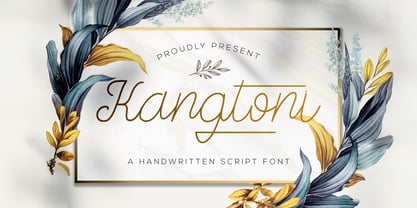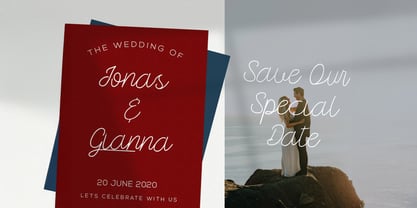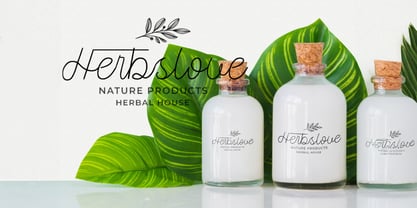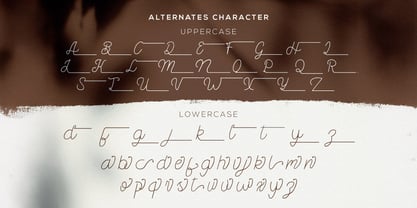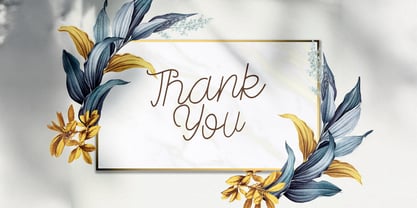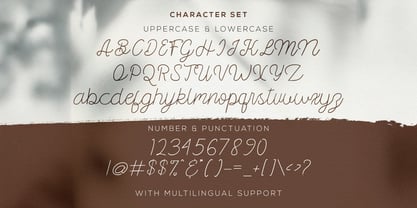
The Kangtoni Font Family was designed by Virgiawan Listanto and published by Stringlabs Creative Studio. Kangtoni contains 1 styles. More about this family
Kangtoni is a sleek and elegant monoline script font that combines modern design with a touch of sophistication. Its smooth, continuous lines create a flowing, handwritten appearance, making it perfect for a wide range of creative projects.
Designers: Virgiawan Listanto
Foundry: Stringlabs Creative Studio